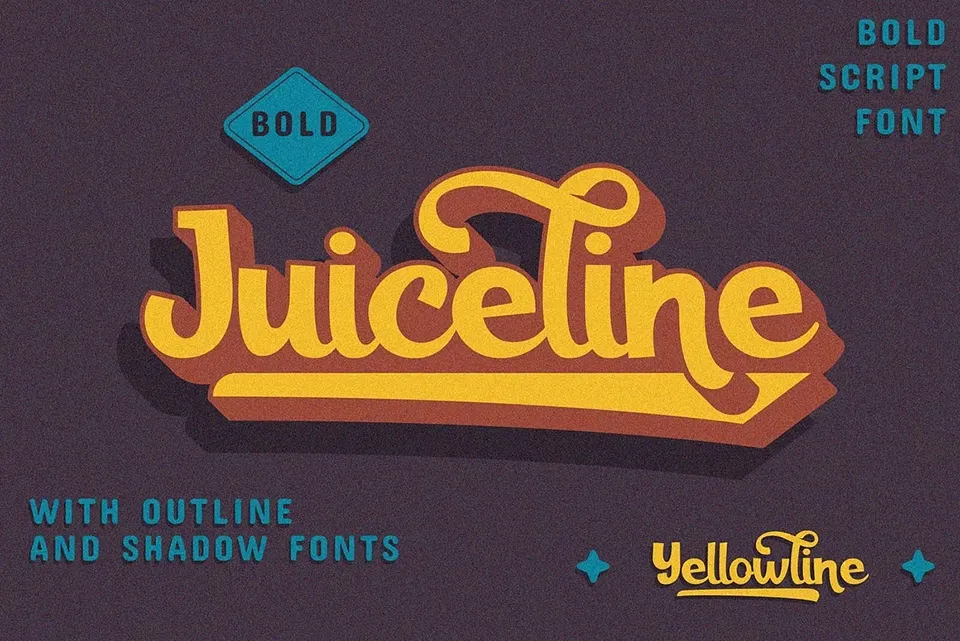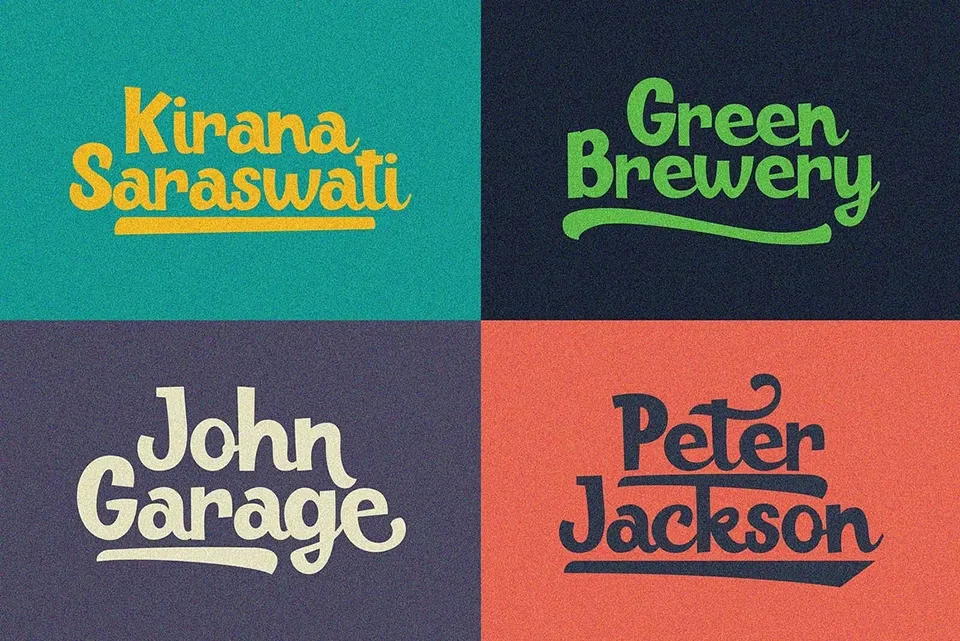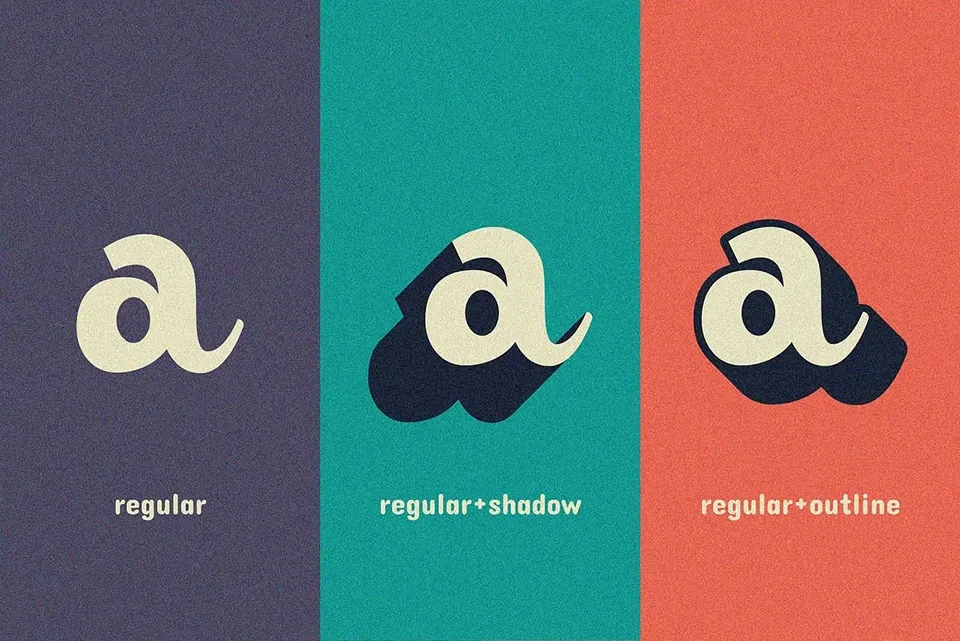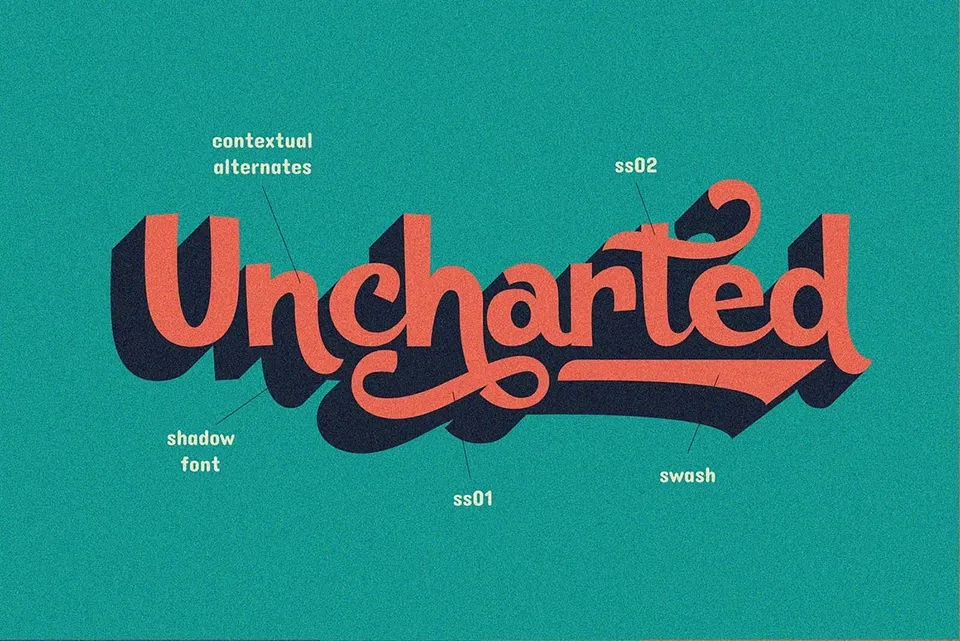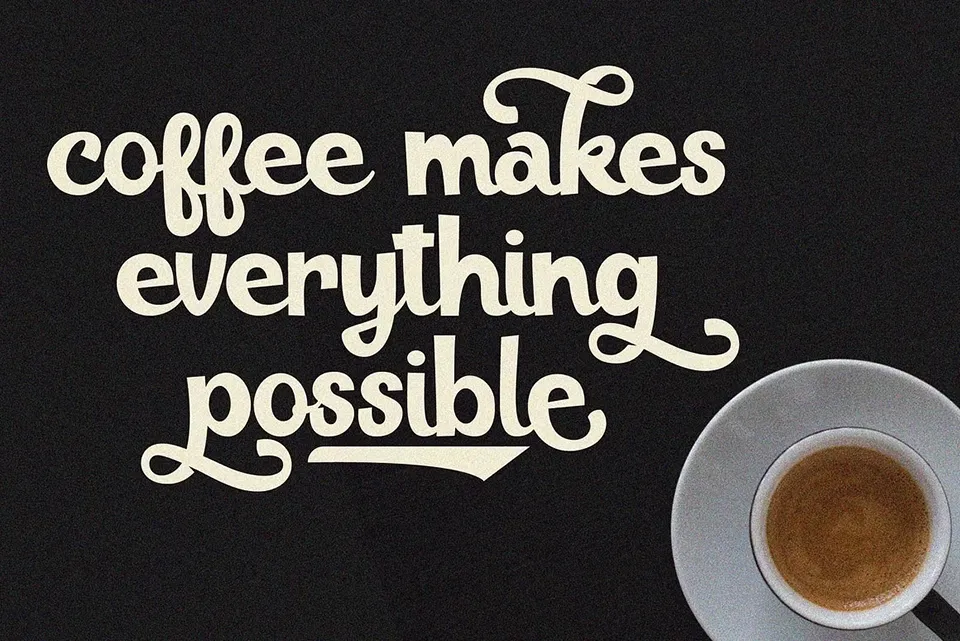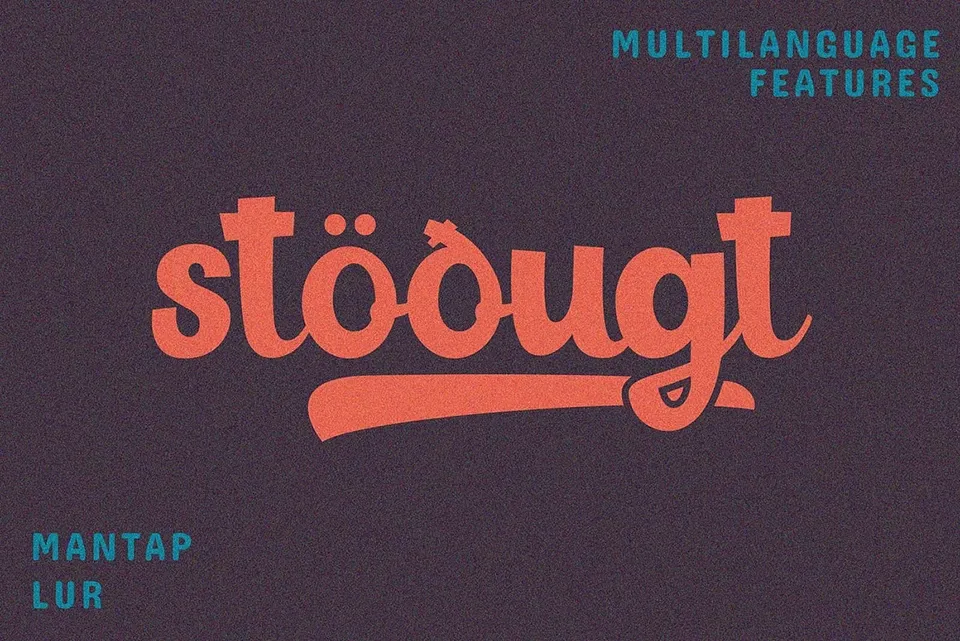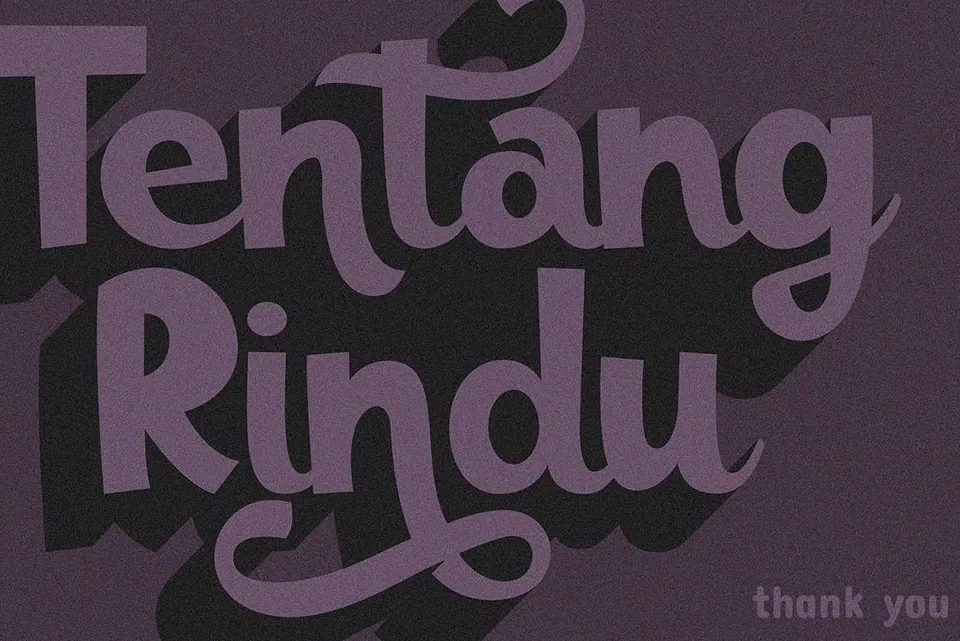
Juiceline Font
Juiceline Font is a bold and groovy script font bursting with retro charm. Inspired by vintage aesthetics, this typeface features thick, flowing letterforms with a distinctively playful yet strong character. Juiceline comes equipped with complementary outline and shadow versions, adding depth and versatility for creating eye-catching layered effects. It’s perfect for logos, branding, packaging, posters, and any design project aiming for a fun, vintage feel, particularly well-suited for food and beverage themes. Bring a splash of nostalgic energy and bold personality to your creative work with the dynamic Juiceline font family!